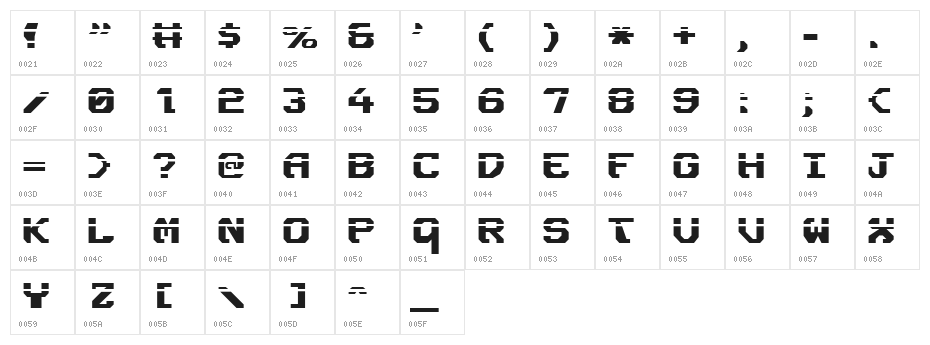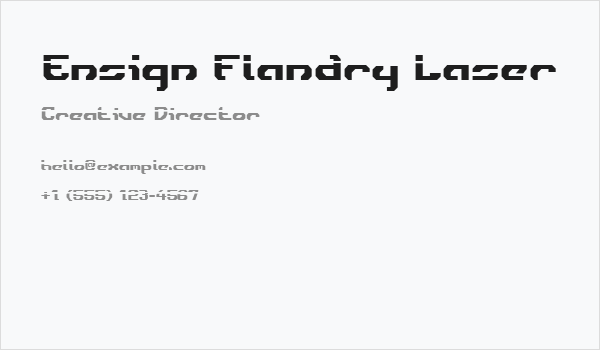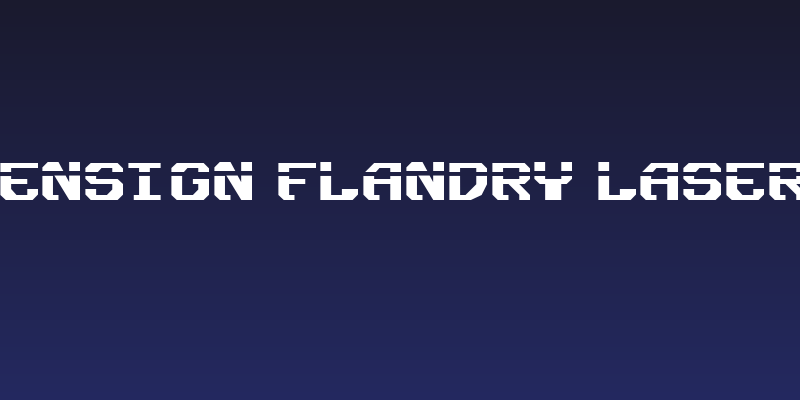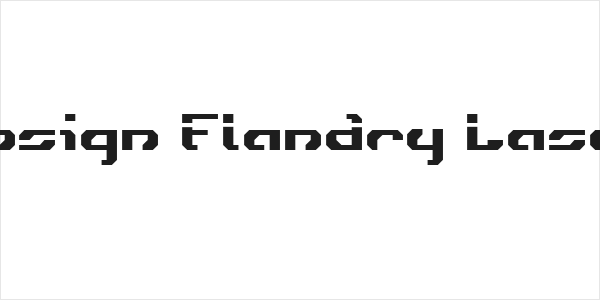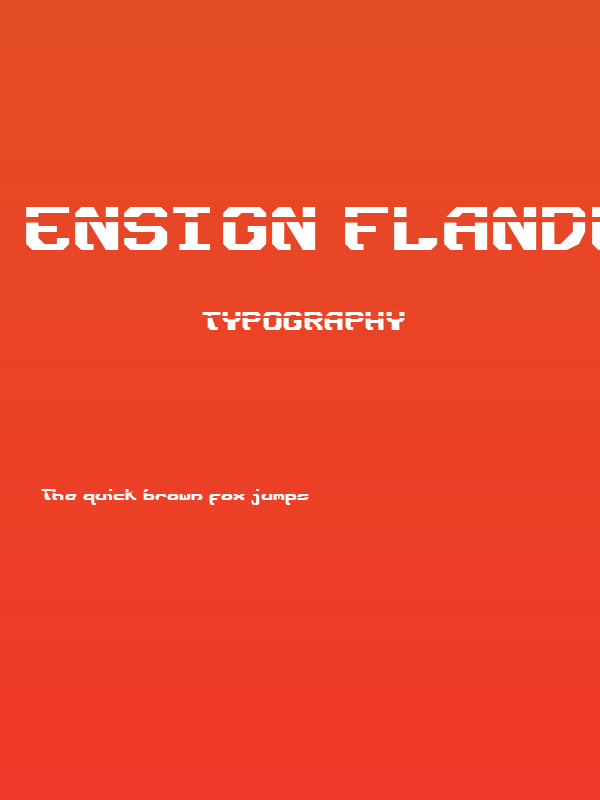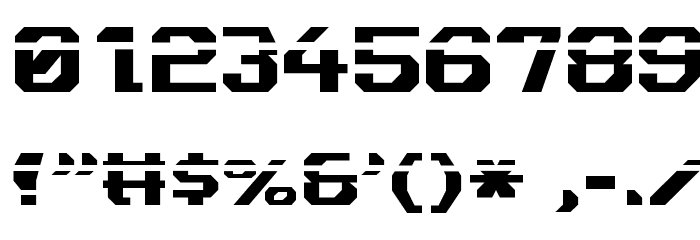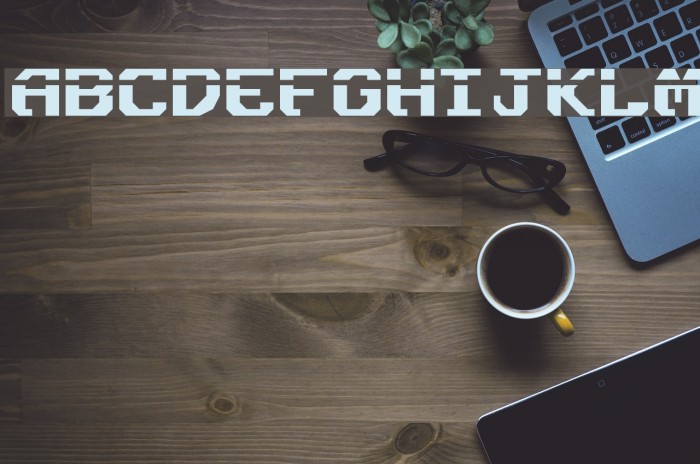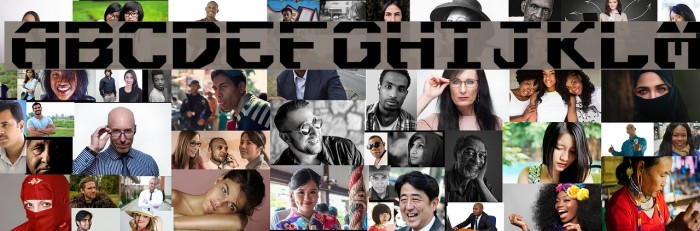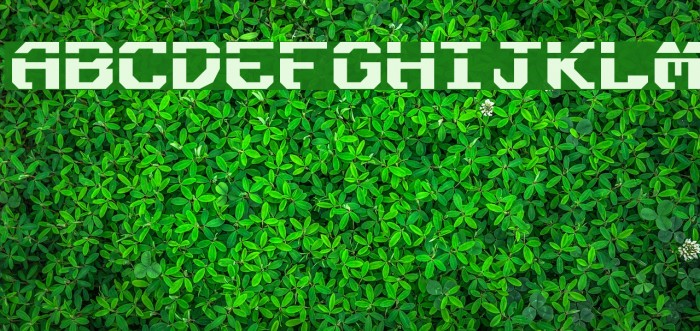
Ensign Flandry Laser Font
Ensign Flandry Laser Description
This font features a bold, futuristic design with a distinct geometric style. The characters are constructed with sharp angles and straight lines, creating a digital or tech-inspired appearance. The uppercase and lowercase letters maintain a consistent structure, with the lowercase slightly smaller but equally bold. Numbers and special characters follow the same design principles, ensuring uniformity across all glyphs. The font's unique style makes it stand out, ideal for projects that require a modern and edgy look.
| Use Case | Logos, Headlines, Posters |
| Proposed Projects | Ideal for technology branding, video game titles, sci-fi book covers, and digital media projects. |